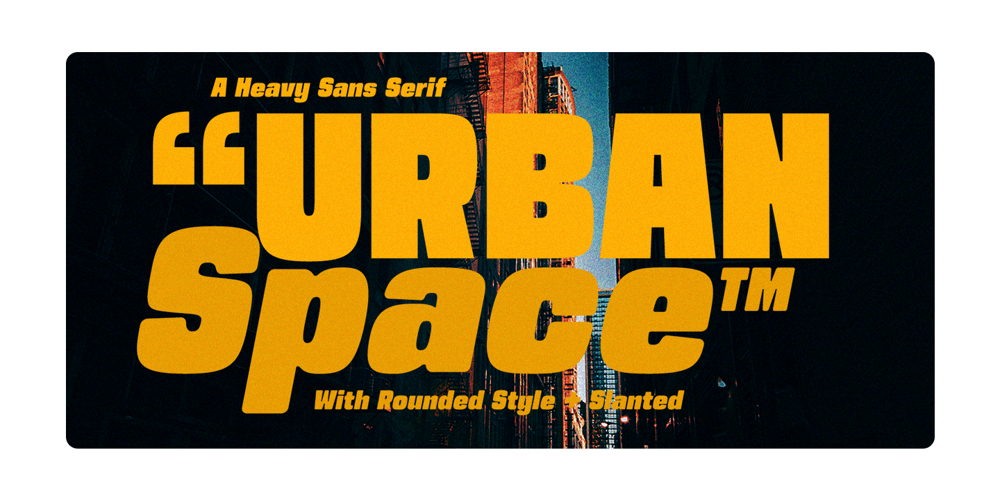
Urban Space Font Family was designed by Hendry Juanda and published by Letterhend. Urban Space contains 4 styles and family package options. Urban Space is a heavy, bold, standout sans serif. This type of font perfectly made to be applied as a headline, logo, title, quotes which is need a standout font, and the other various formal forms such as invitations, labels, logos, magazines, books, greeting / wedding cards, packaging, fashion, make up, stationery, novels, labels or any type of advertising purpose.Features : lowercase and uppercase numbers and punctuation multilingual ligatures PUA encoded We highly recommend using a program that supports OpenType features and Glyphs panels like many of Adobe apps and Corel Draw, so you can see and access all Glyph variations.